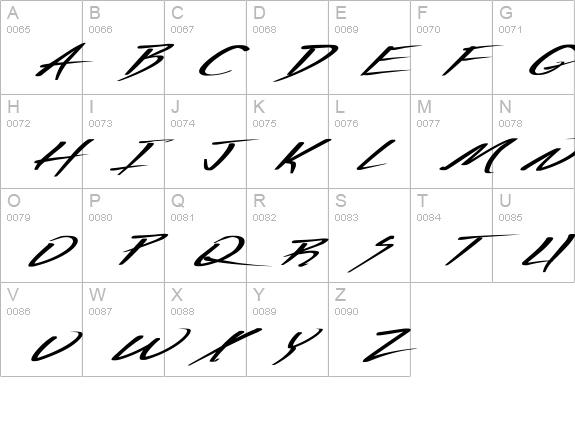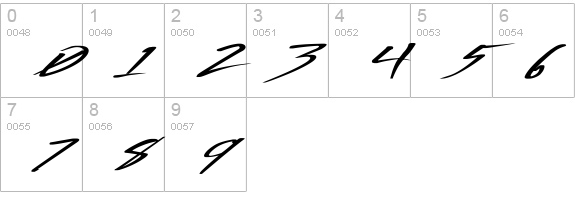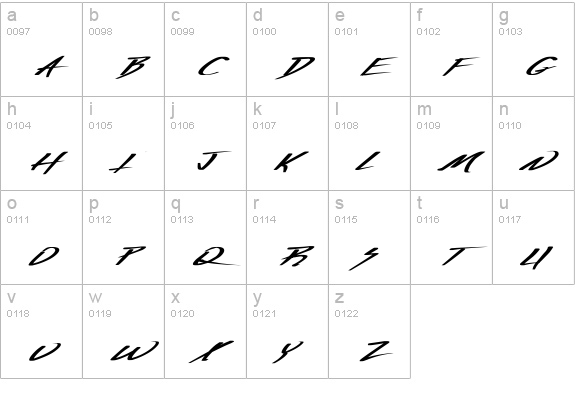
Vecker Ex Bold Italic Font Details
Vecker Ex Bold Italic is a strong, high-contrast, italic variant in the Vecker typeface family \xE2\x80\x94 well suited to headlines, attention-grabbing titles, and strong calls-to-action.
Introducing Vecker Ex Bold Italic, a magnificent font that effortlessly combines strength and elegance. This bold italic typeface exudes confidence and sophistication, making it perfect for any design project that requires a touch of modernity and boldness. Vecker Ex Bold Italic stands out with its unique and distinctive letterforms, featuring a harmonious blend of thick strokes and graceful curves. Each character has been meticulously crafted to convey a sense of power and style, making this font an excellent choice for headlines, logos, branding, and more. One of the most remarkable aspects of Vecker Ex Bold Italic is its versatility. Whether you're designing a poster for a music festival, creating a sleek and professional website, or adding a touch of boldness to your social media graphics, this font will elevate your designs to new heights. But that's not all – Vecker Ex Bold Italic is not only visually stunning, but it is also freely available for download at FontsMarket.com. Yes, you read that right! This incredible font can be yours without breaking the bank. Simply visit FontsMarket.com, and you'll have access to this exceptional typeface, ready to enhance your design projects with its bold and captivating presence. So why wait? Download Vecker Ex Bold Italic today and unleash its power and elegance in your next creative endeavor. Whether you're a professional designer or a passionate hobbyist, this font will undoubtedly leave a lasting impression on your audience and make your designs truly unforgettable.